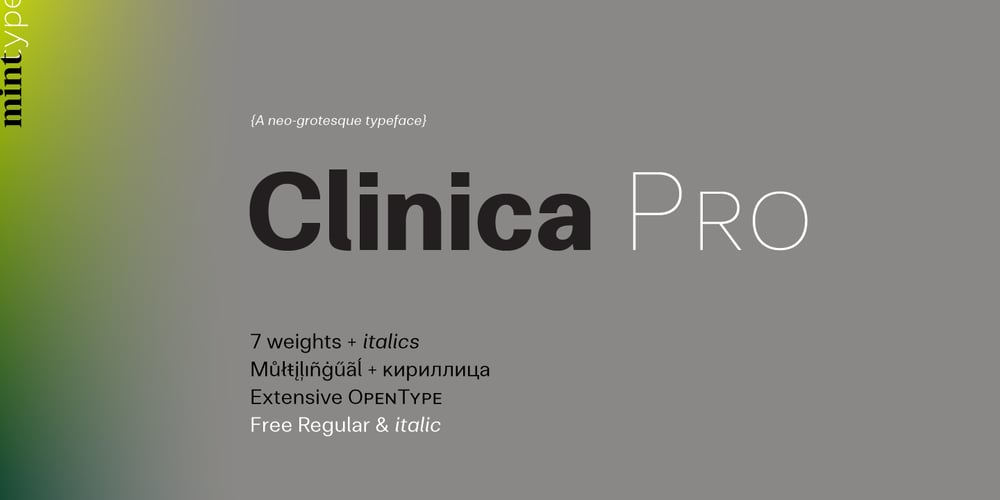
Clinica Pro
Clinica Pro font
Clinica Pro Font Family was designed by Andriy Konstantynov and published by Mint Type. Clinica Pro contains 16 styles and family package options. Clinica Pro is a modern take on Swiss grotesques, with a little bit of an added personality. It features 8 weights, italics, 6 sets of figures, small caps and a bunch of ligatures. Still relatively neutral, it lets a brand stand out of the grotesque-crowded environment with support for multiple languages as well as Cyrillic script.